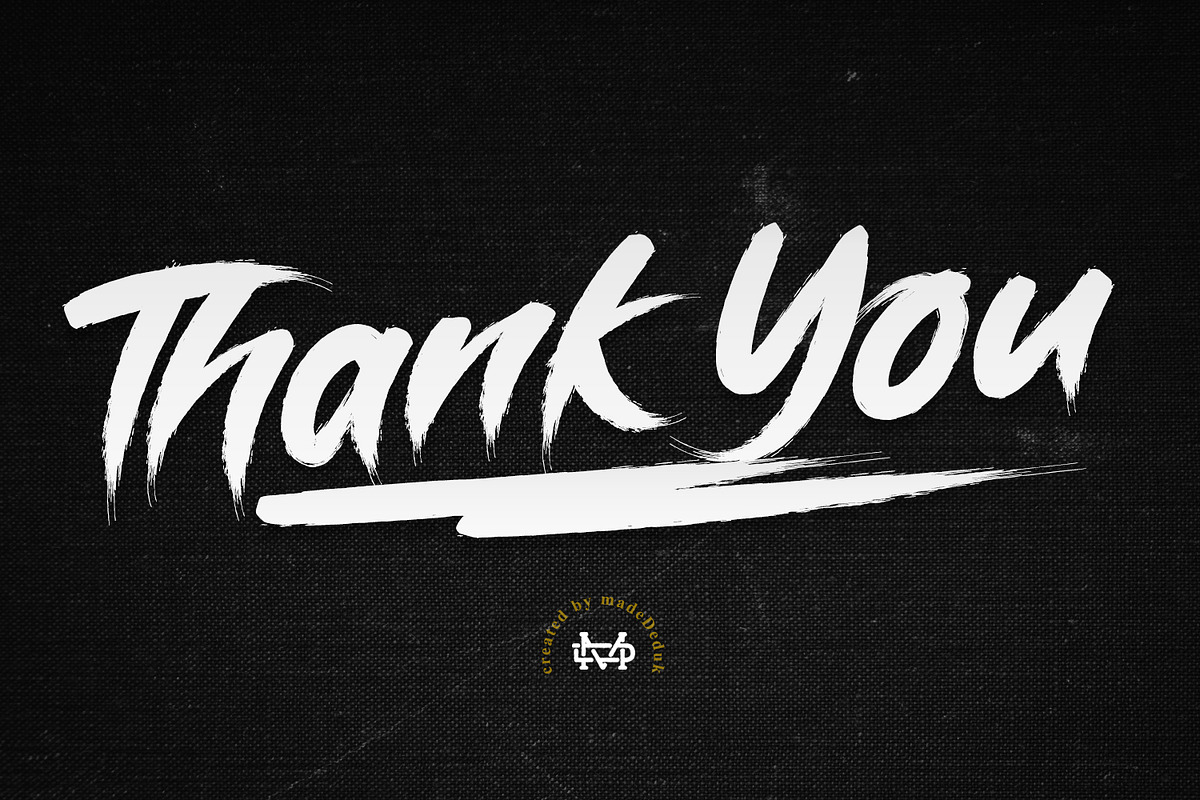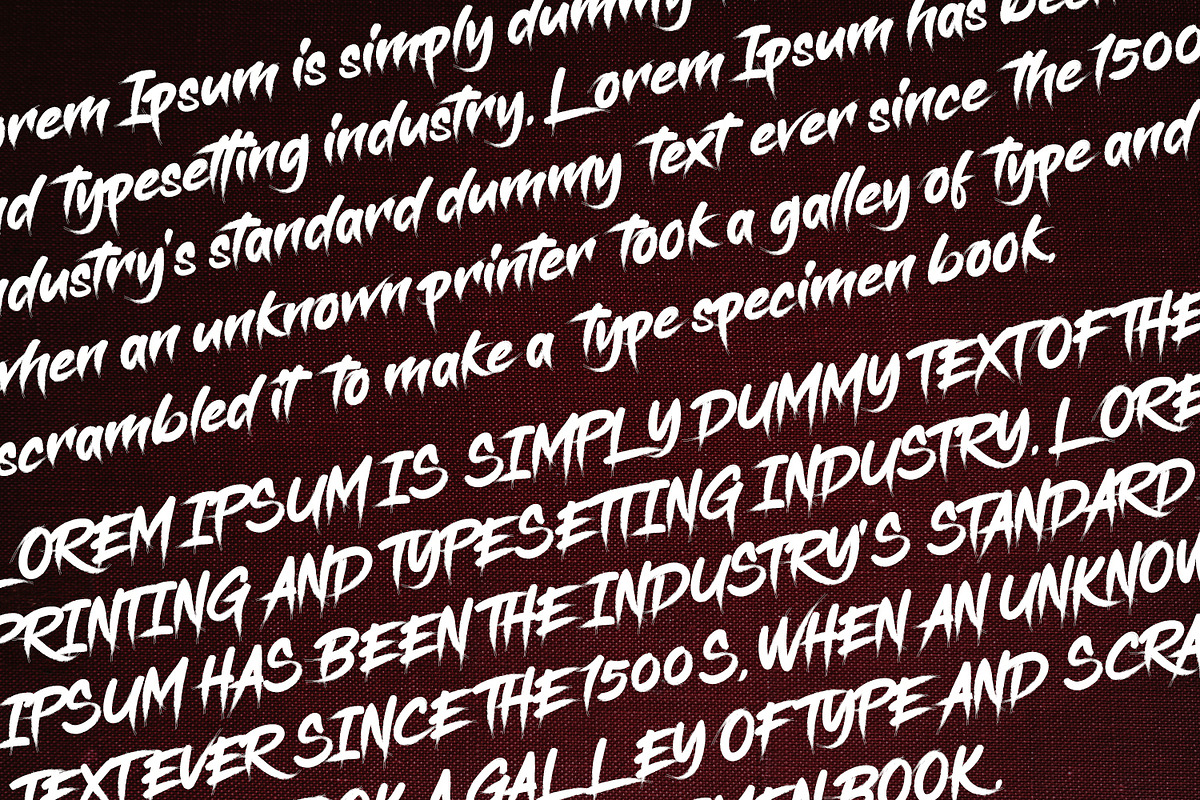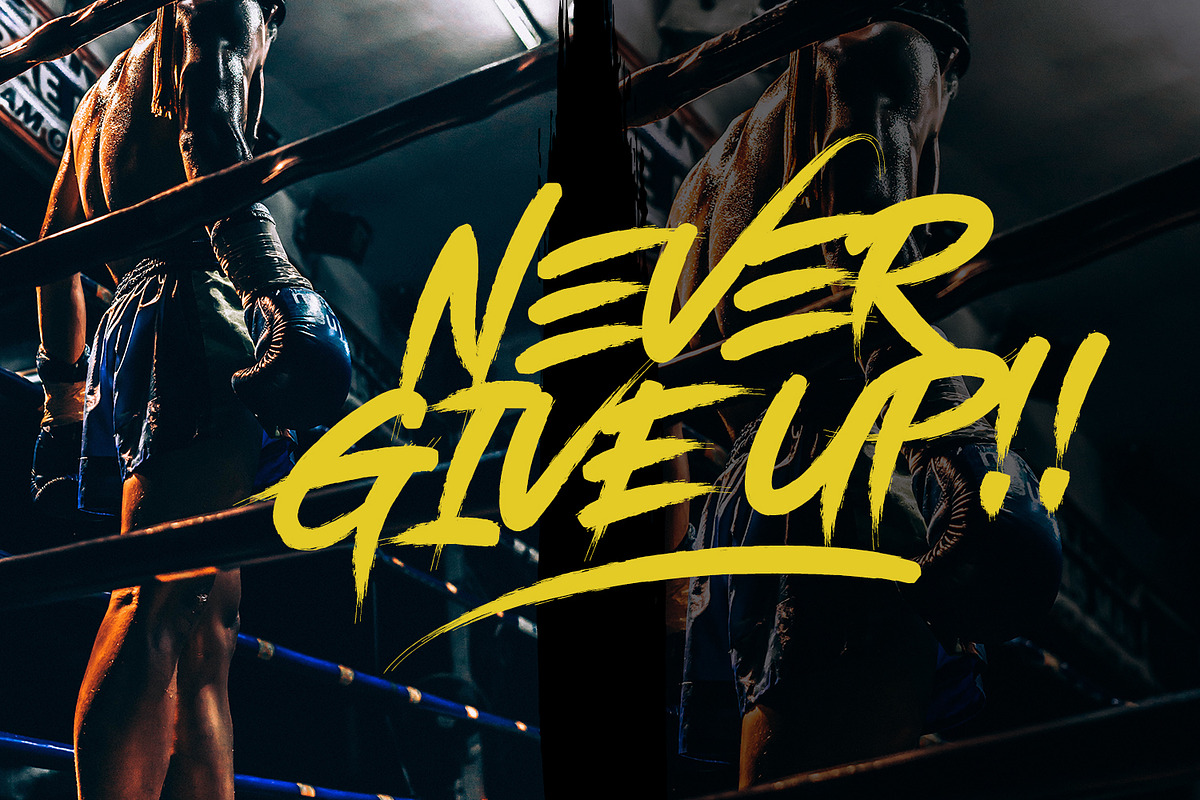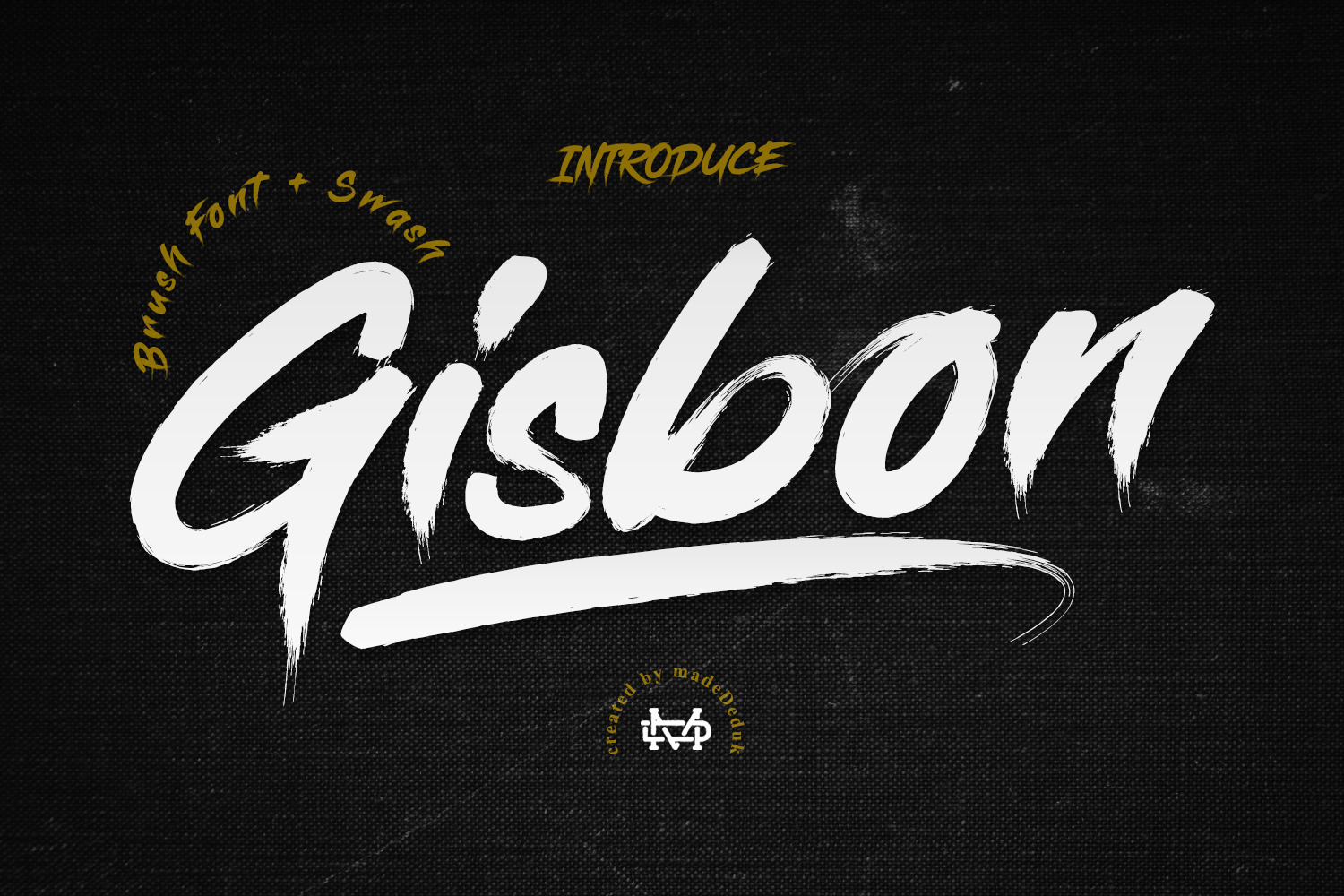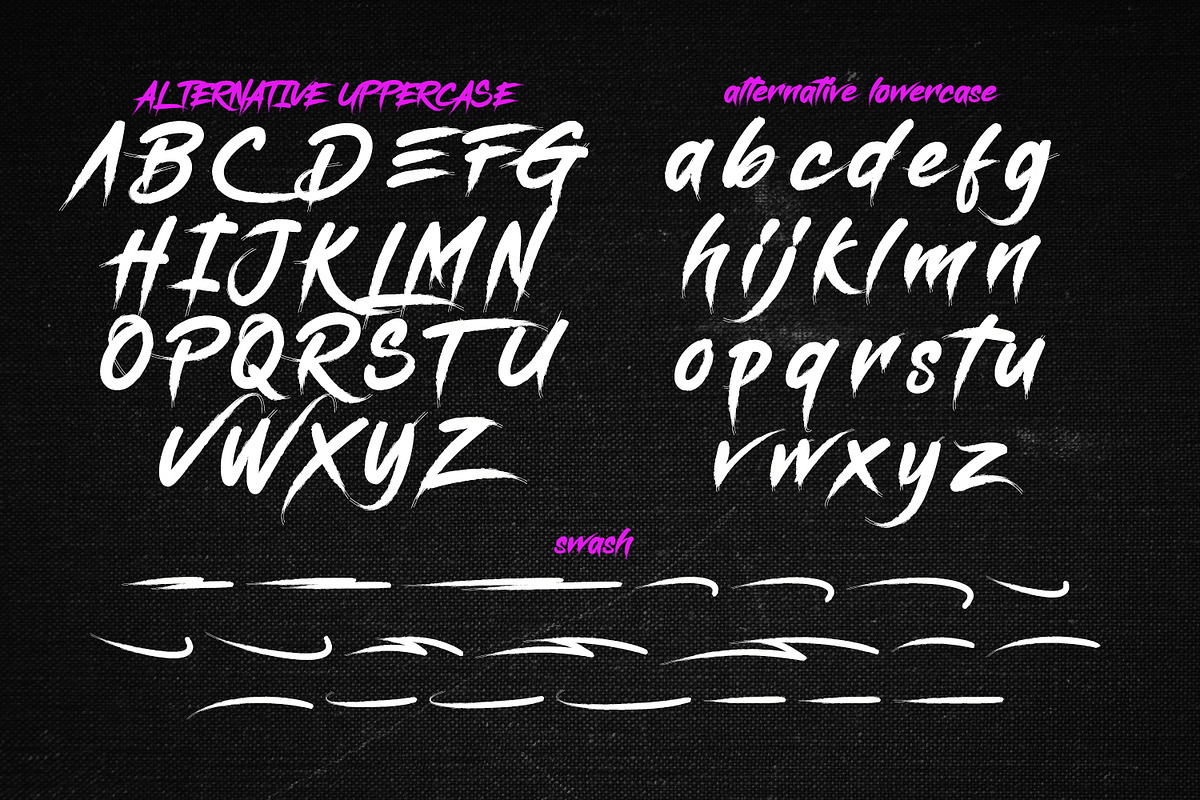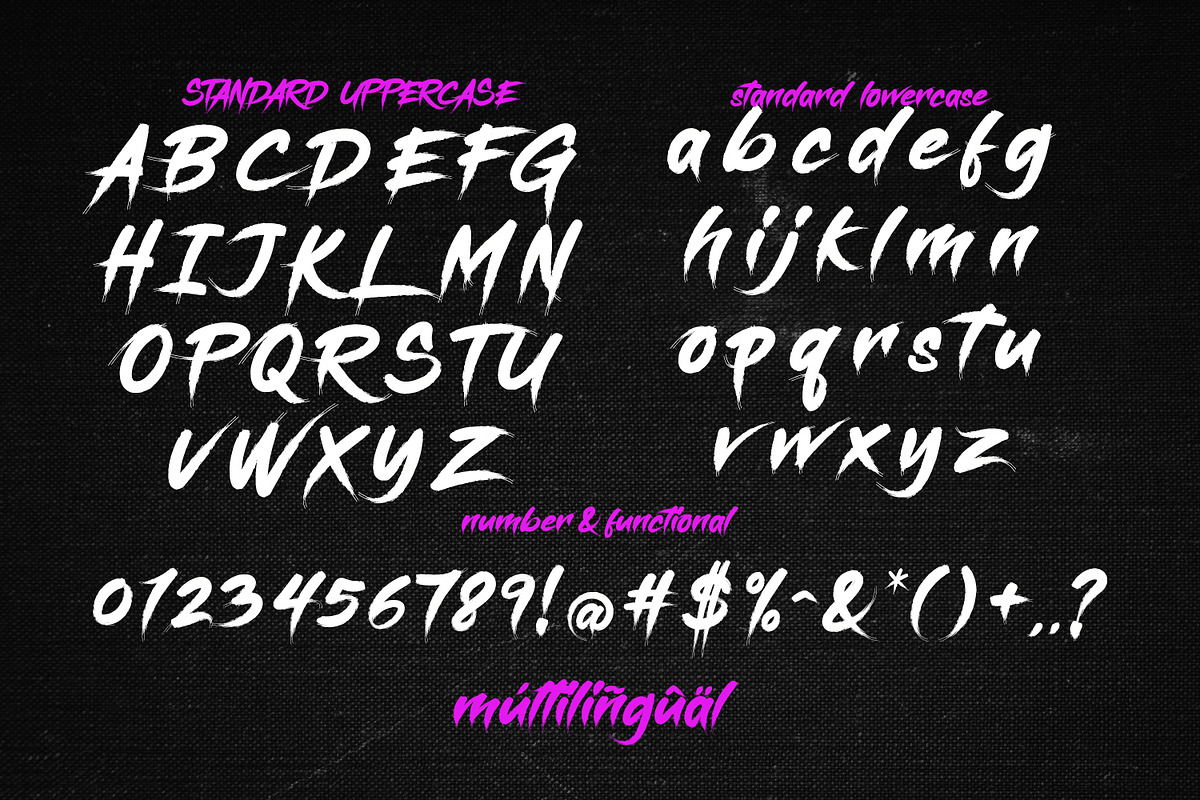
Gisbon - Brush Typeface
Really excited to introduce Gisbon Typeface
Gisbon is a Modern Brush Typeface. This font perfect for poster design, book covers, merchandise, fashion campaigns, newsletters, branding, advertising, magazines, greeting cards, album covers, and quote designs and more.
- International Glyphs
- ALternative